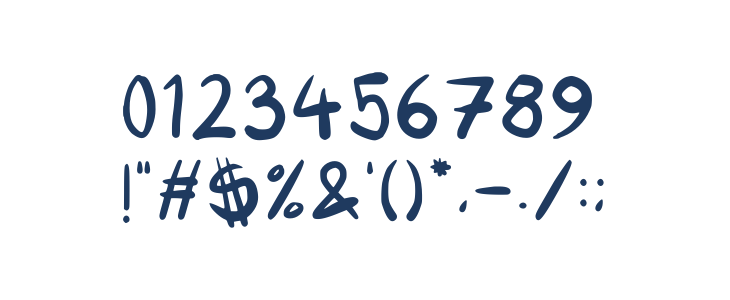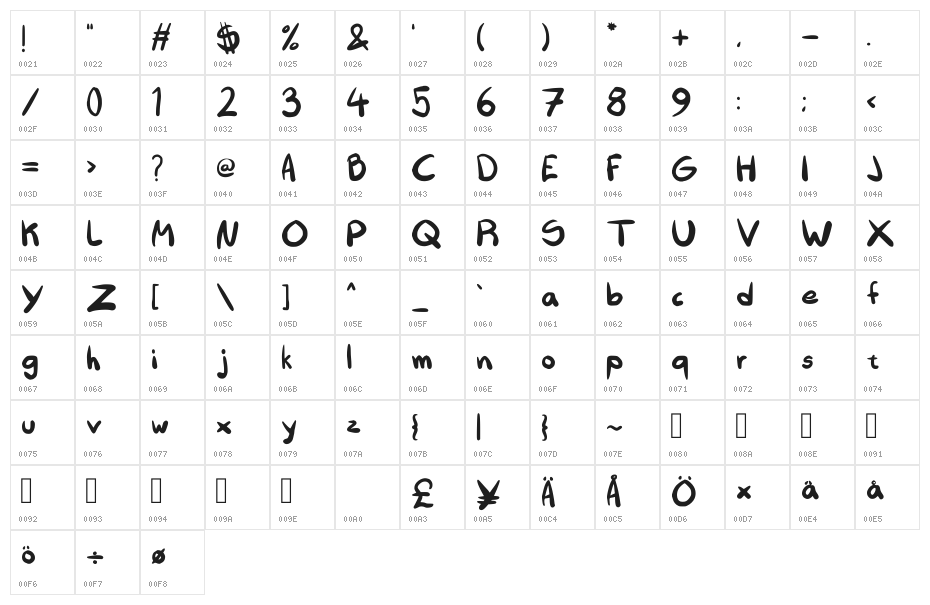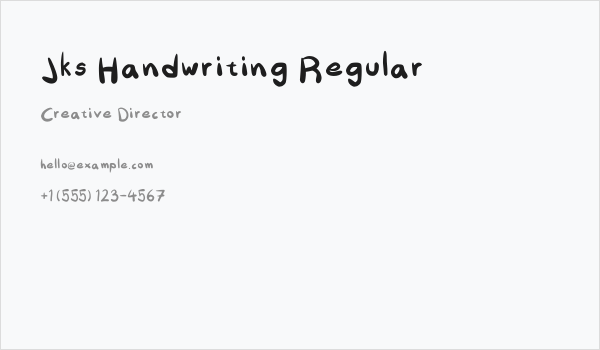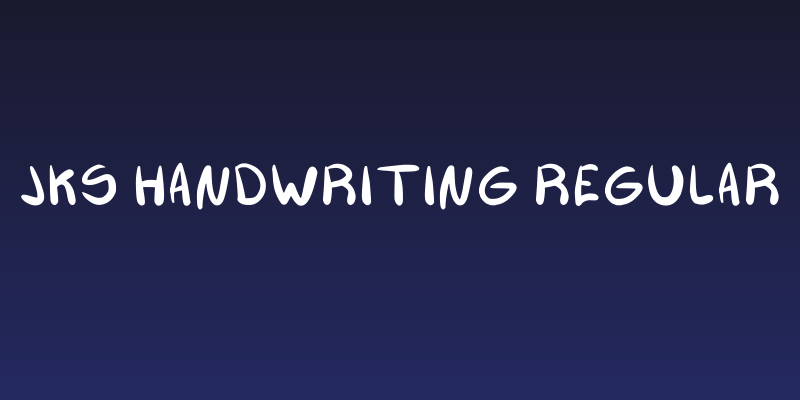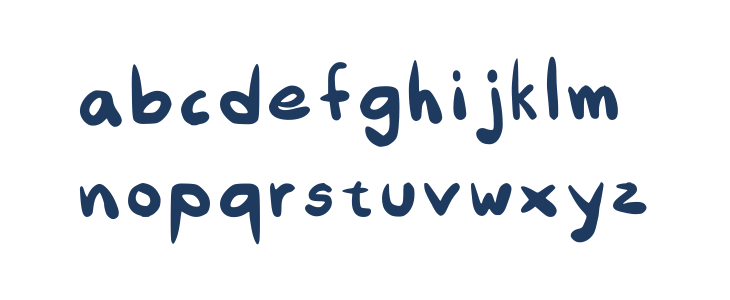
Jks Handwriting Regular Font
Jks Handwriting Regular Description
A playful, informal handwritten style with rounded, uneven strokes and a casual, friendly appearance. The characters vary in height and width, giving it an organic, natural feel.
| Overall Style | Playful, Informal, Casual |
| Use Case | Headlines, Short text, Creative projects |
| Proposed Projects | ChildrenΓ’β¬β’s books, greeting cards, informal posters, creative branding, educational materials. |